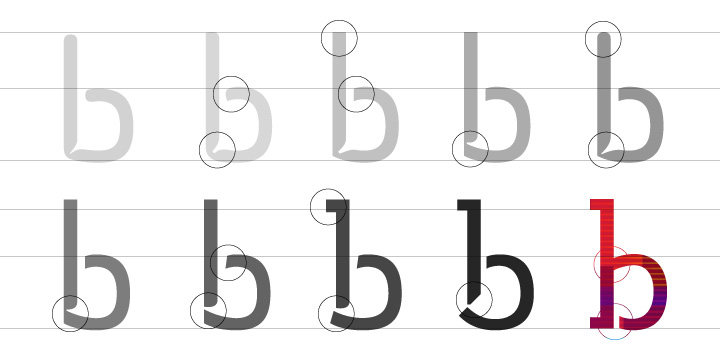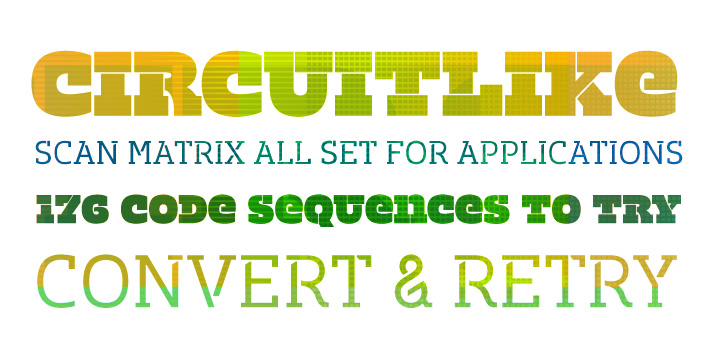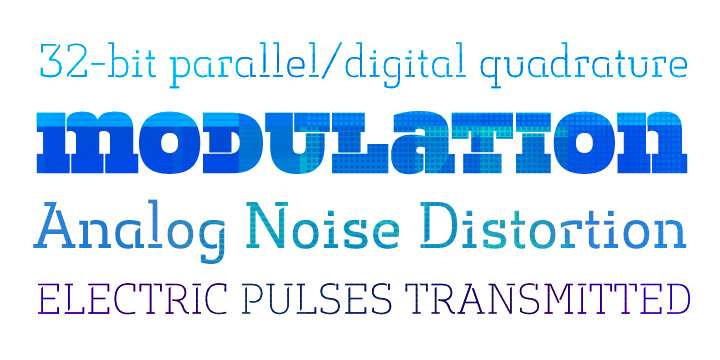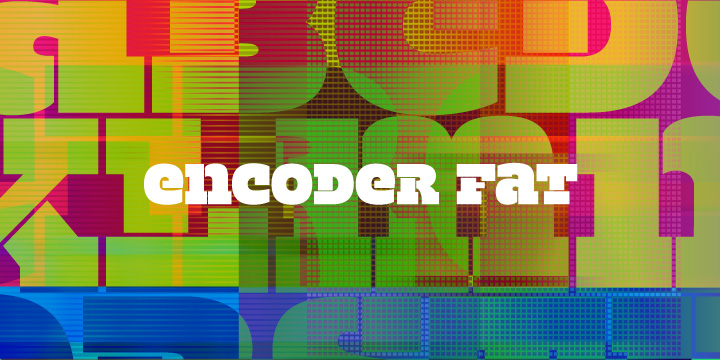
Encoder Font Family
This is not a stencil font. At least it isn’t intended to be. The foundation for the entire font comes from a progression in experimental rules on stroke intersections (pinching, separating) while maintaining proportions and elements from a more conventional typeface.
More latitude was given to the unicase “Fat” face but still retains the overall flavor of the original. The end result is a typeface that’s hard to categorize as any one personality. Most likely a good candidate for logo, display, or headline work, the applications for Encoder are yet undeciphered.
• Designers: Galen Lawson
Encoder Light
Encoder Medium
Encoder Fat